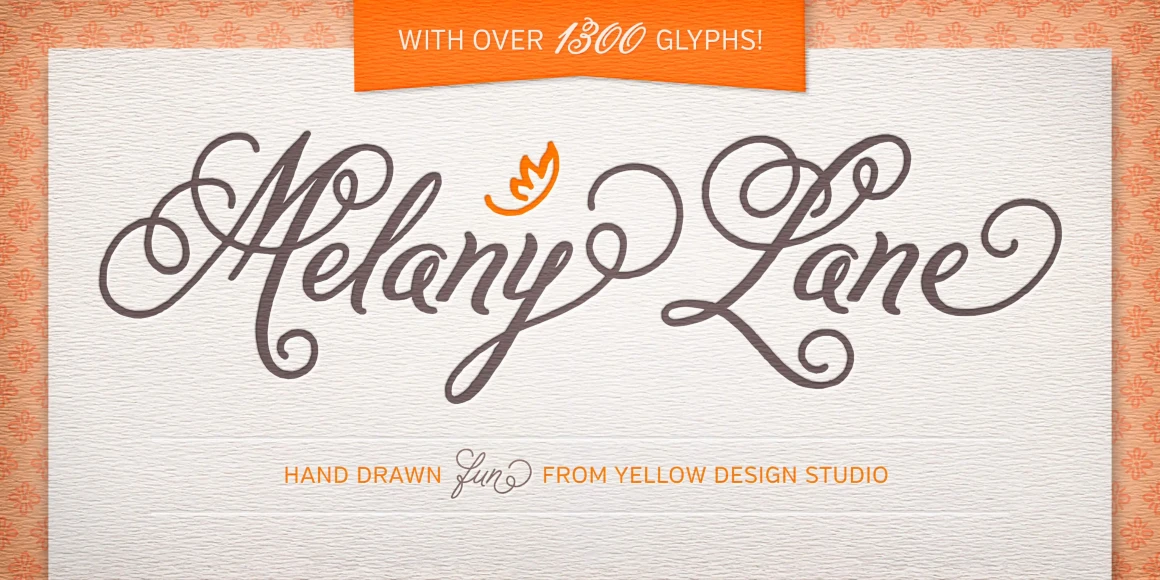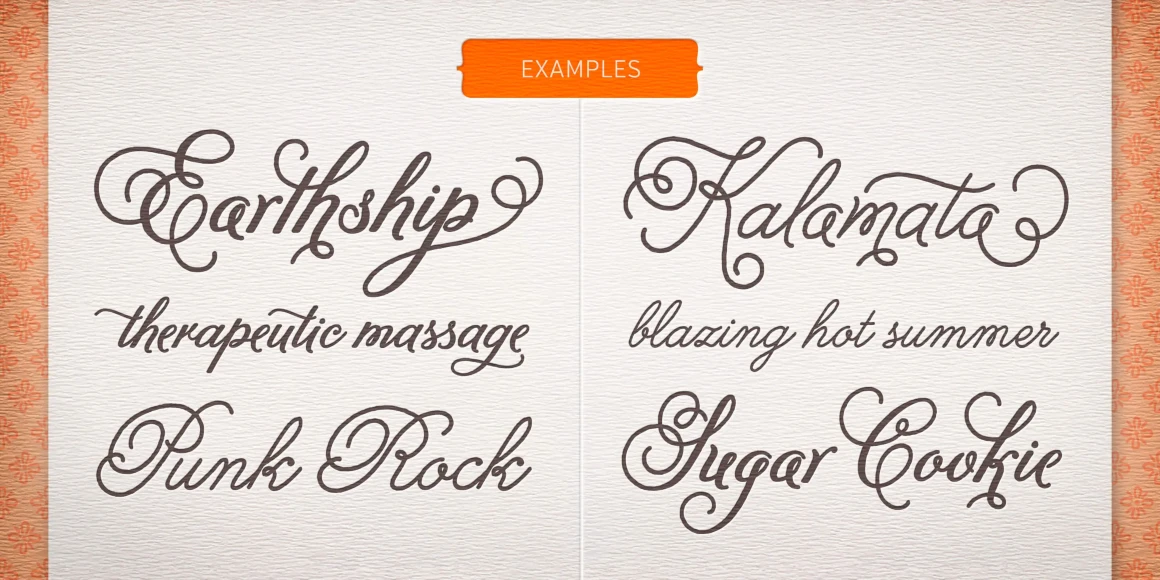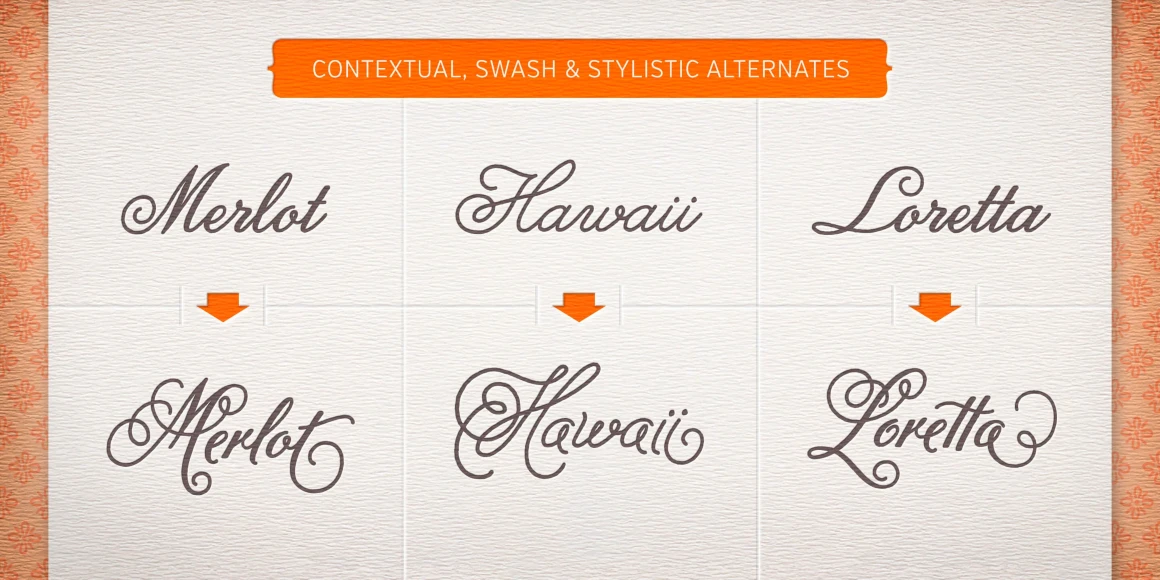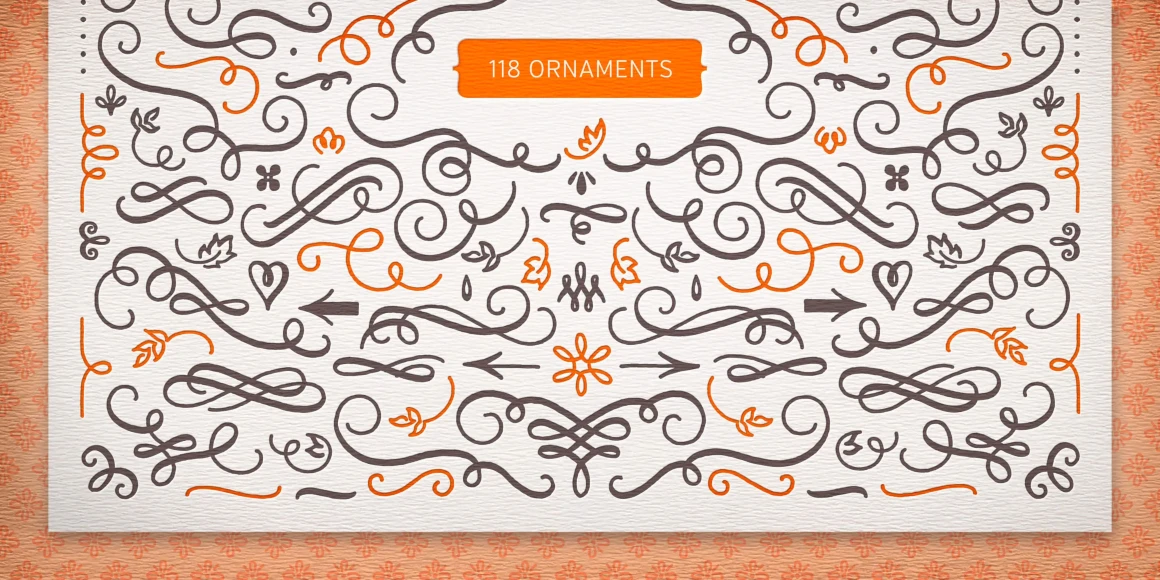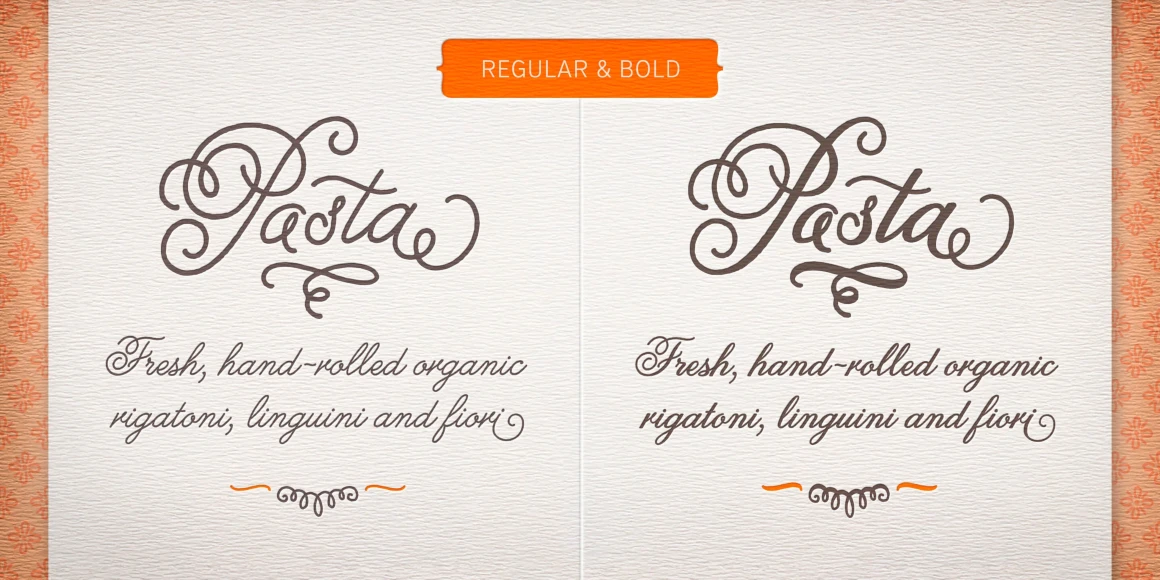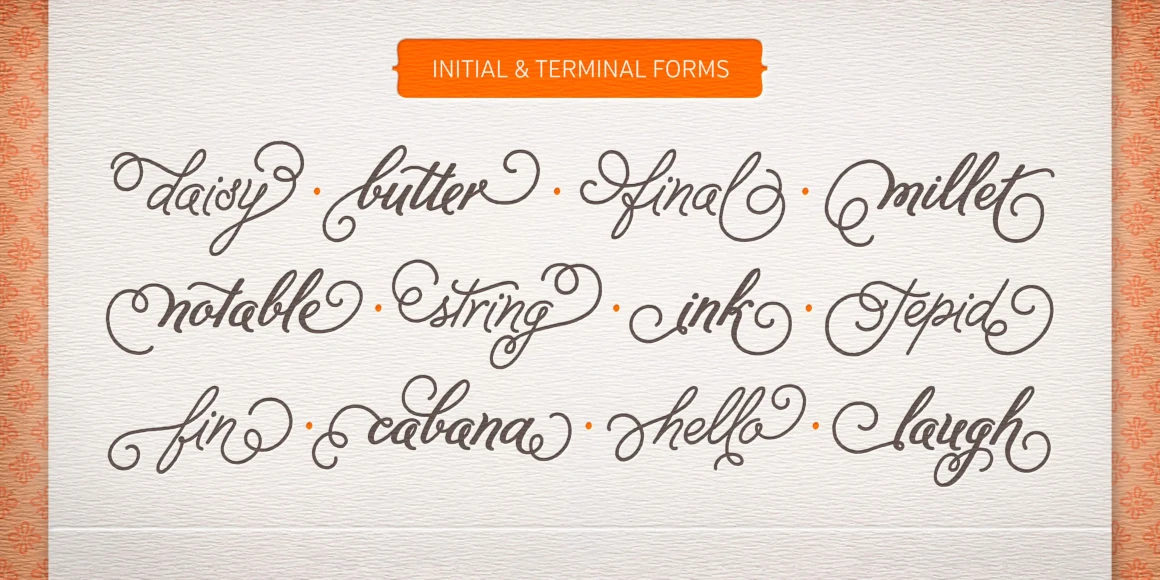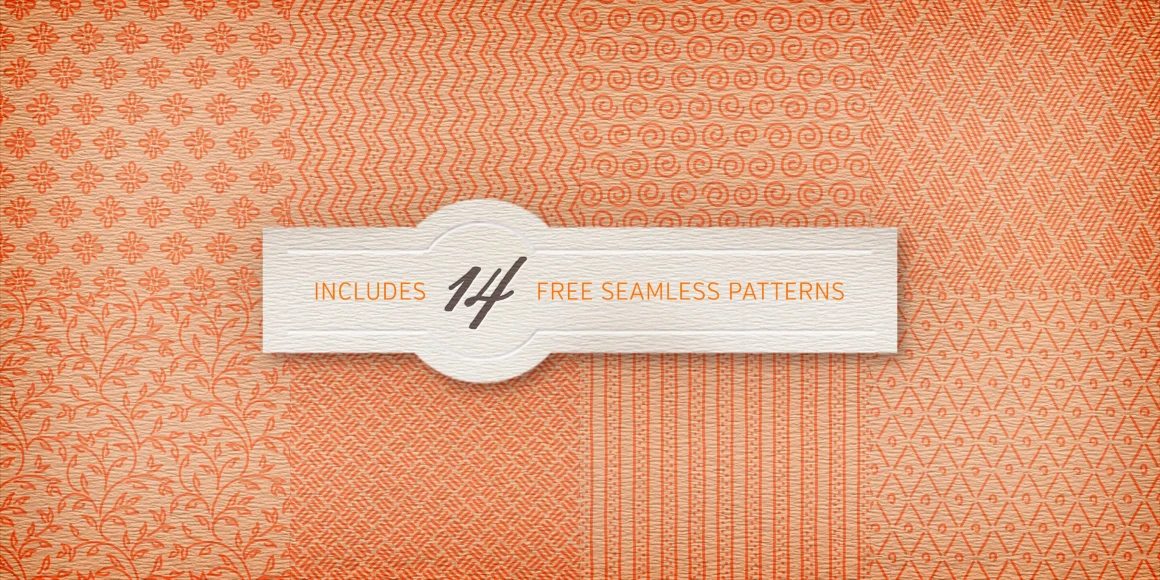
Melany Lane
By Ryan Martinson & Rhea Martinson
Melany Lane Ornaments
Melany Lane Patterns
Melany Lane Regular
Melany Lane Bold
Melany Lane Ornaments Bold
Melany Lane is a flourishy script based on traditional letterforms, but with the added quirks and warmth of hand-drawn type. The base character set has traditionally connected letters and an expressive charm. Contextual alternates add flair with unconnected letters and additional contour options. Mix in swash and stylistic alternates for extra funkiness and fun. Melany Lane features regular and bold, 118 eclectic ornaments, and a set of 14 seamless background patterns.